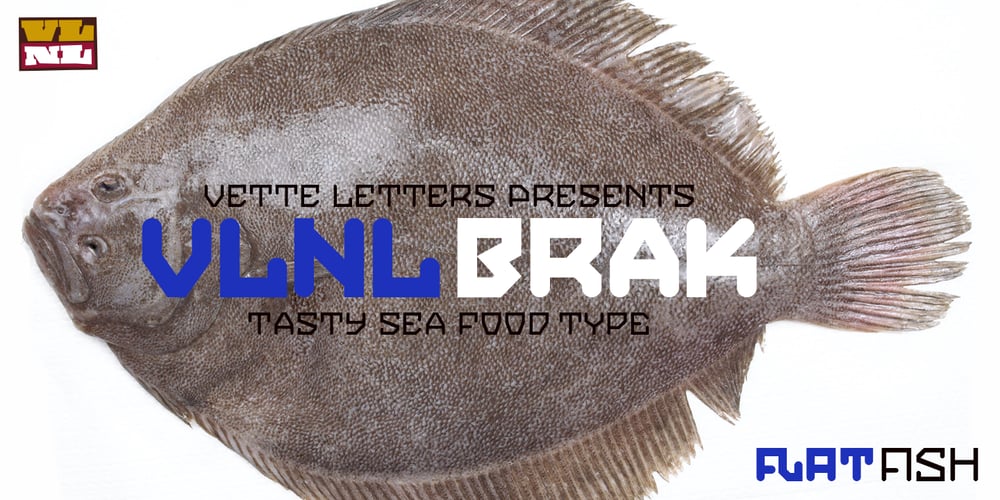
VLNL Brak Font Family was designed by Donald Beekman and published by VetteLetters. VLNL Brak contains 2 styles and family package options. Brak is the dutch word for ‘brackish’, the mix of fresh and salten sea water found in river deltas and estuaries. Brak is also VetteLetters’ straightforward display font with straight lines and rounded ends, and comes in two weights. It does really well in sea food dishes like fish, lobster, mussels and shrimps. Brak doesn’t beat around the bush, it is an all-caps typeface with alternative capital letterforms assigned to the lowercase positions, for a variety of combinations.